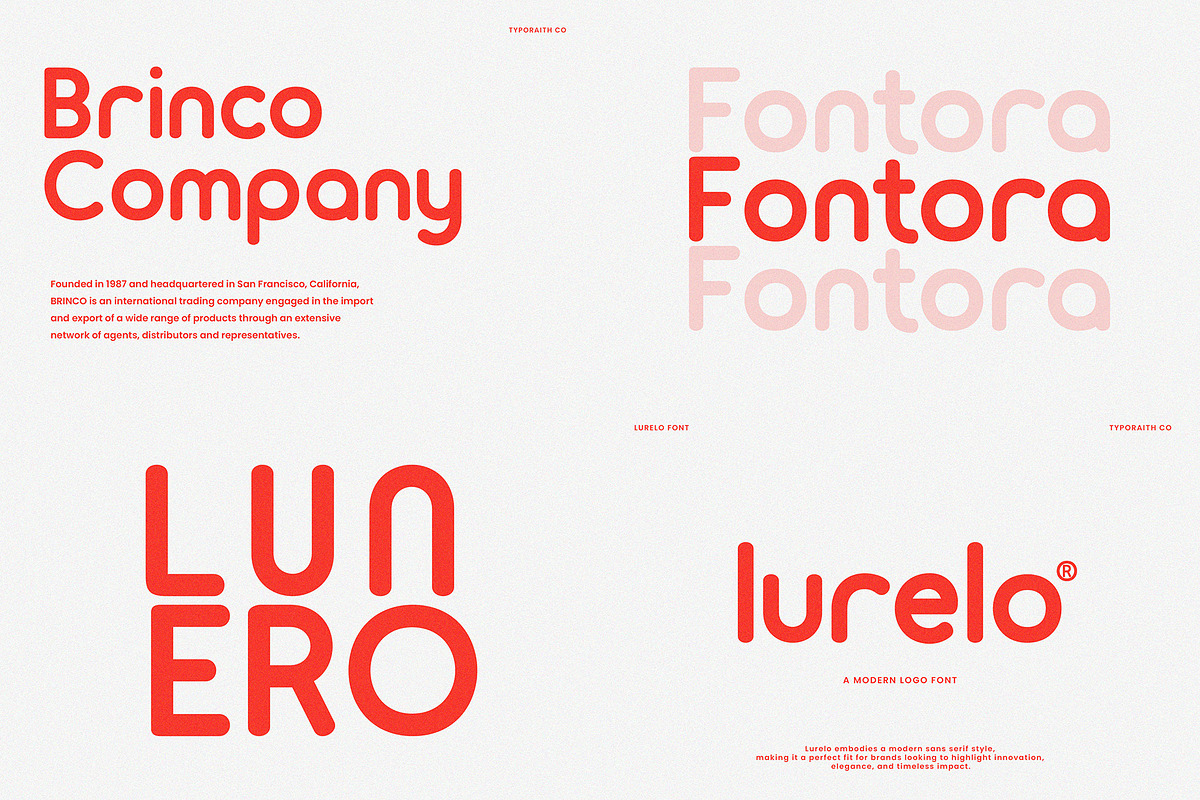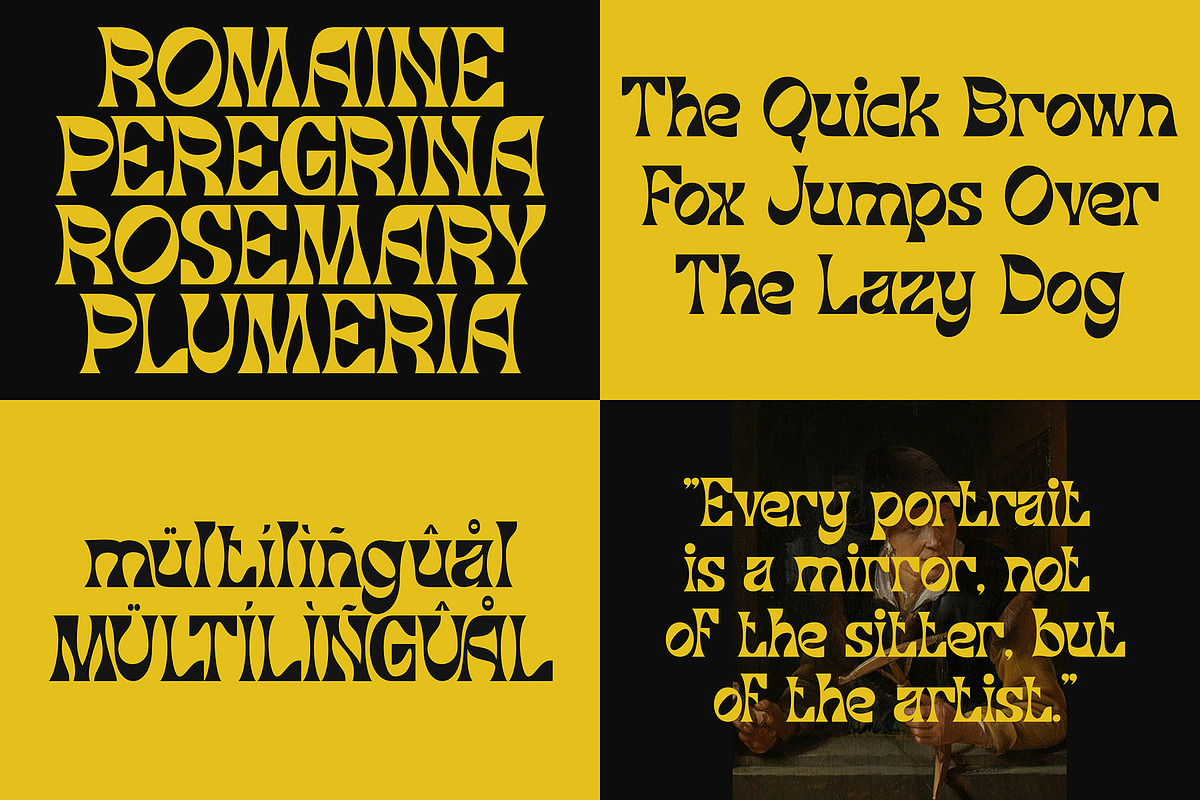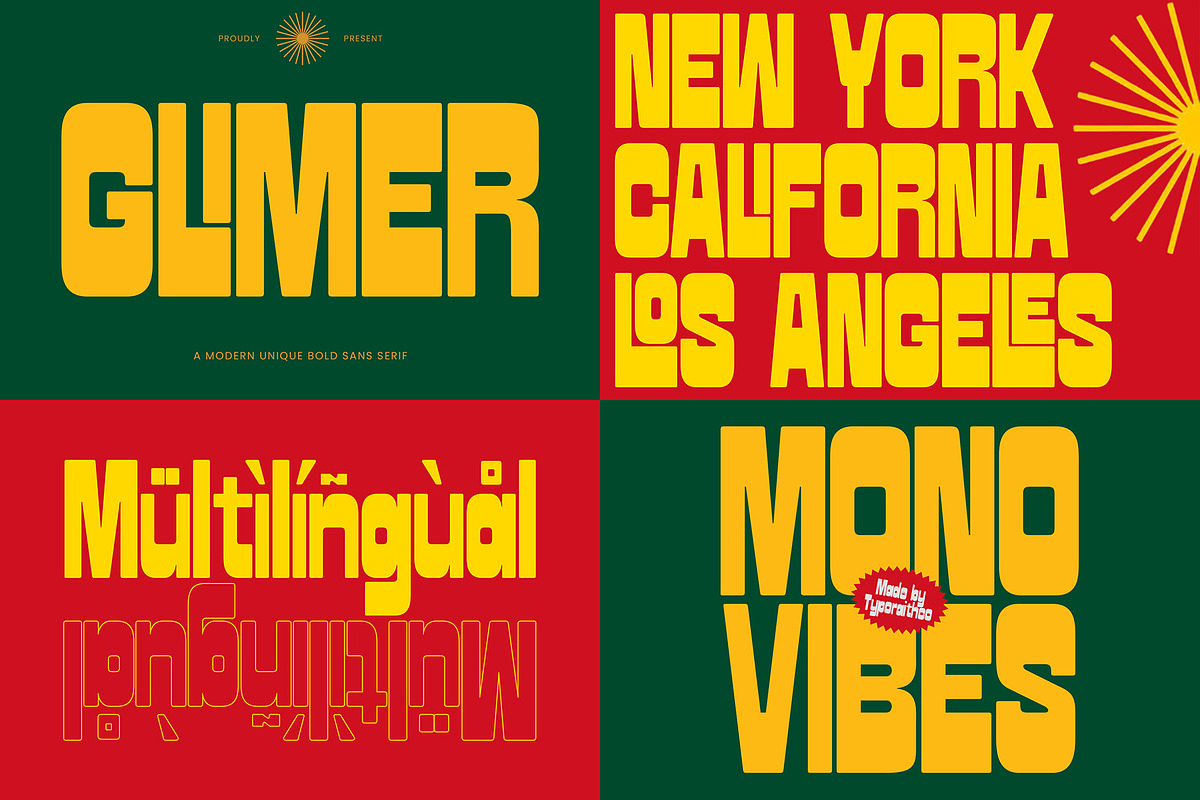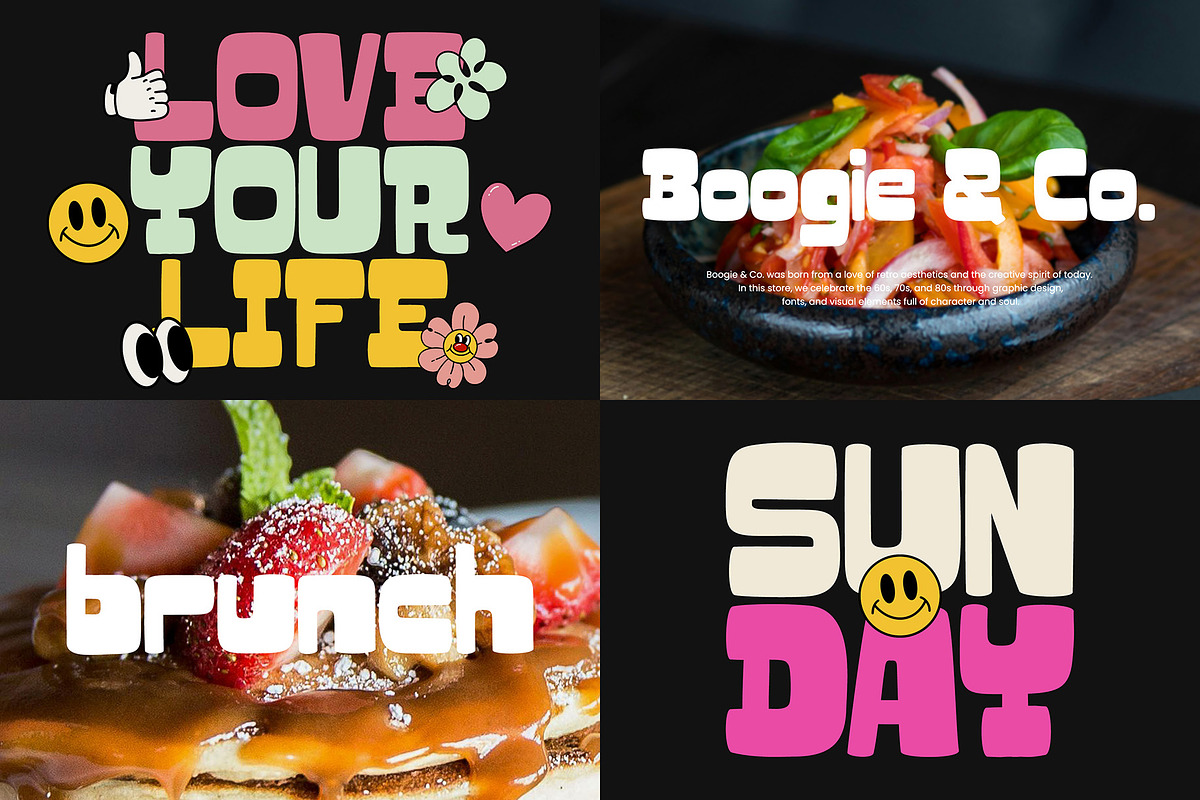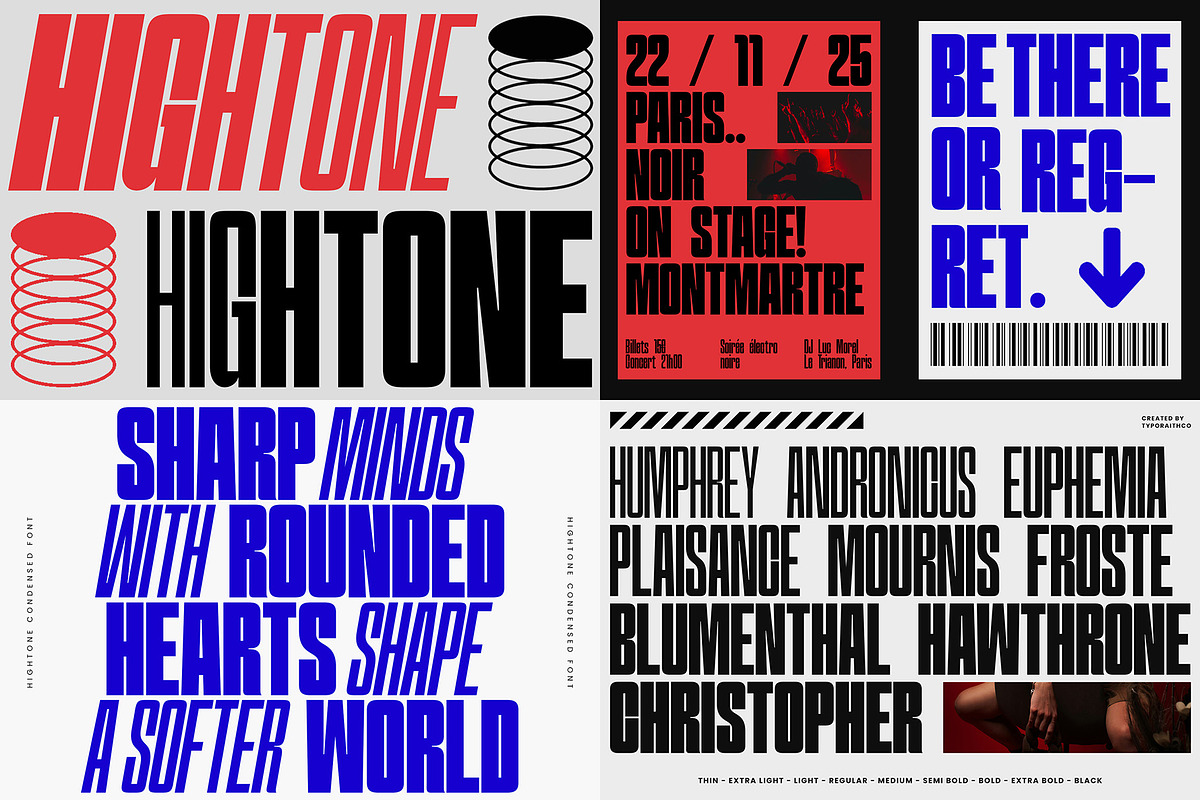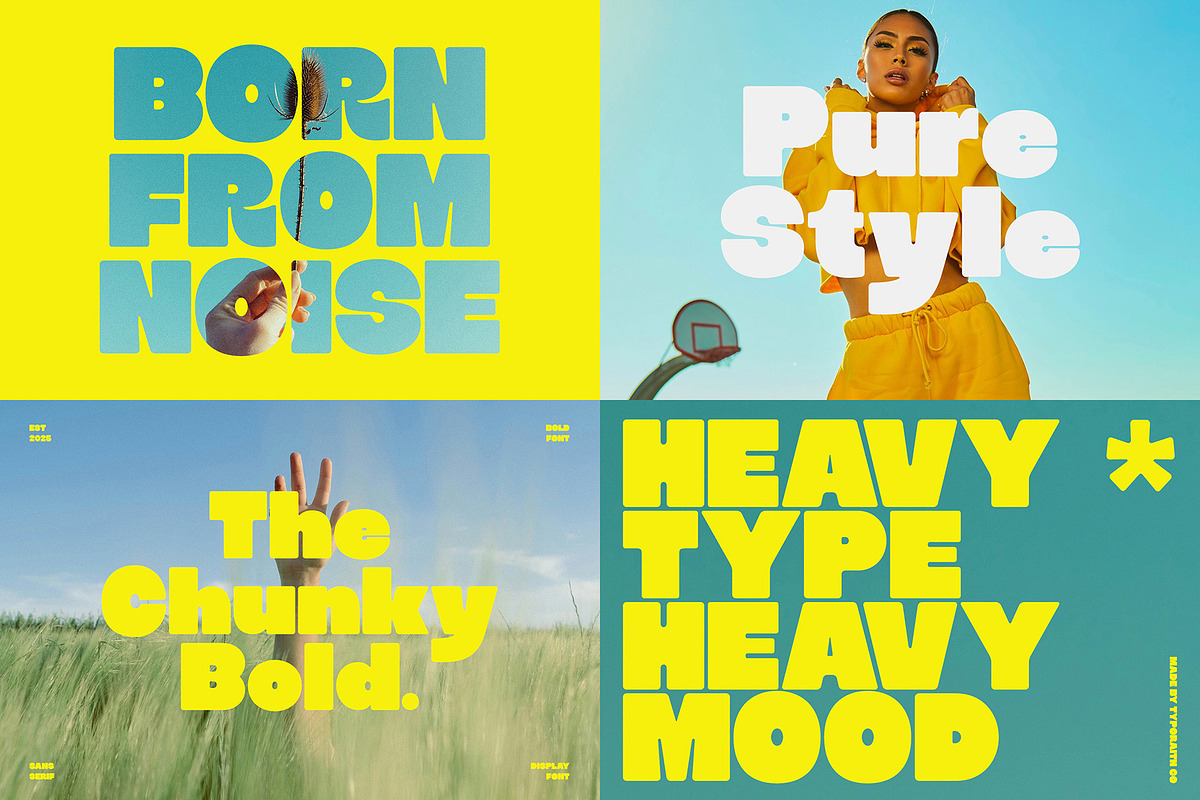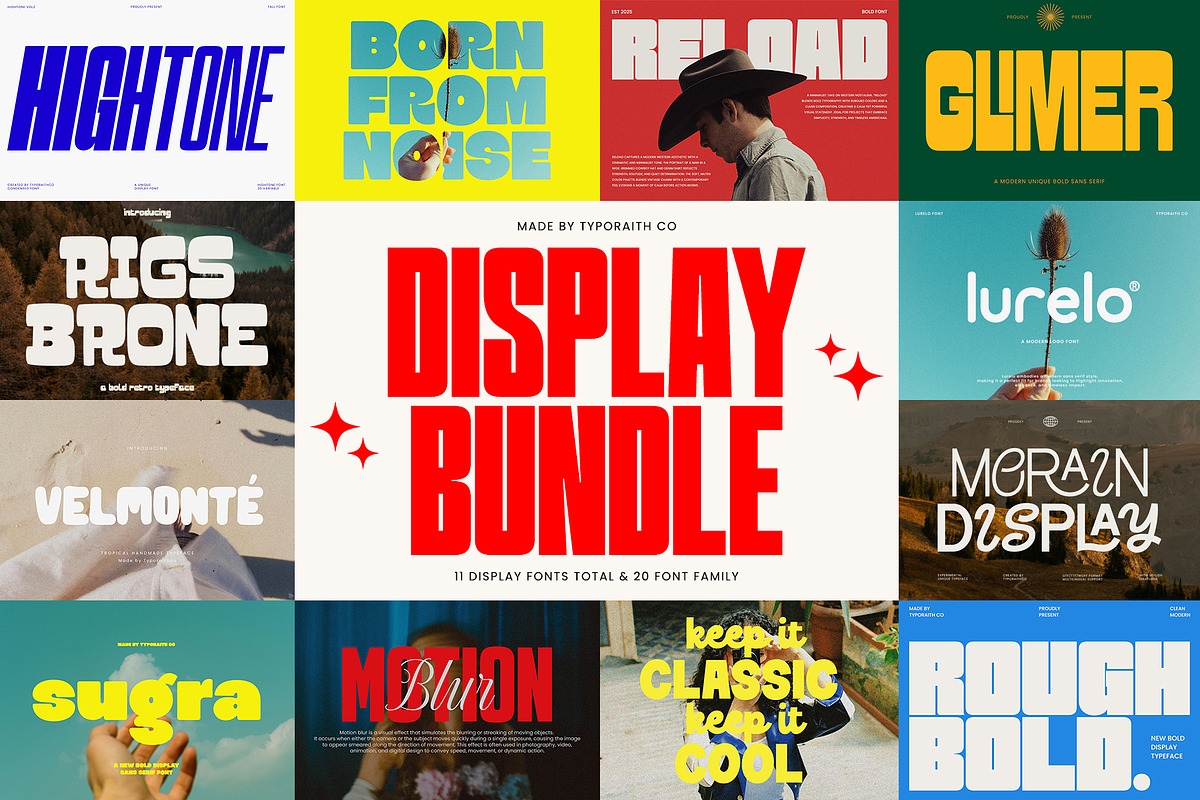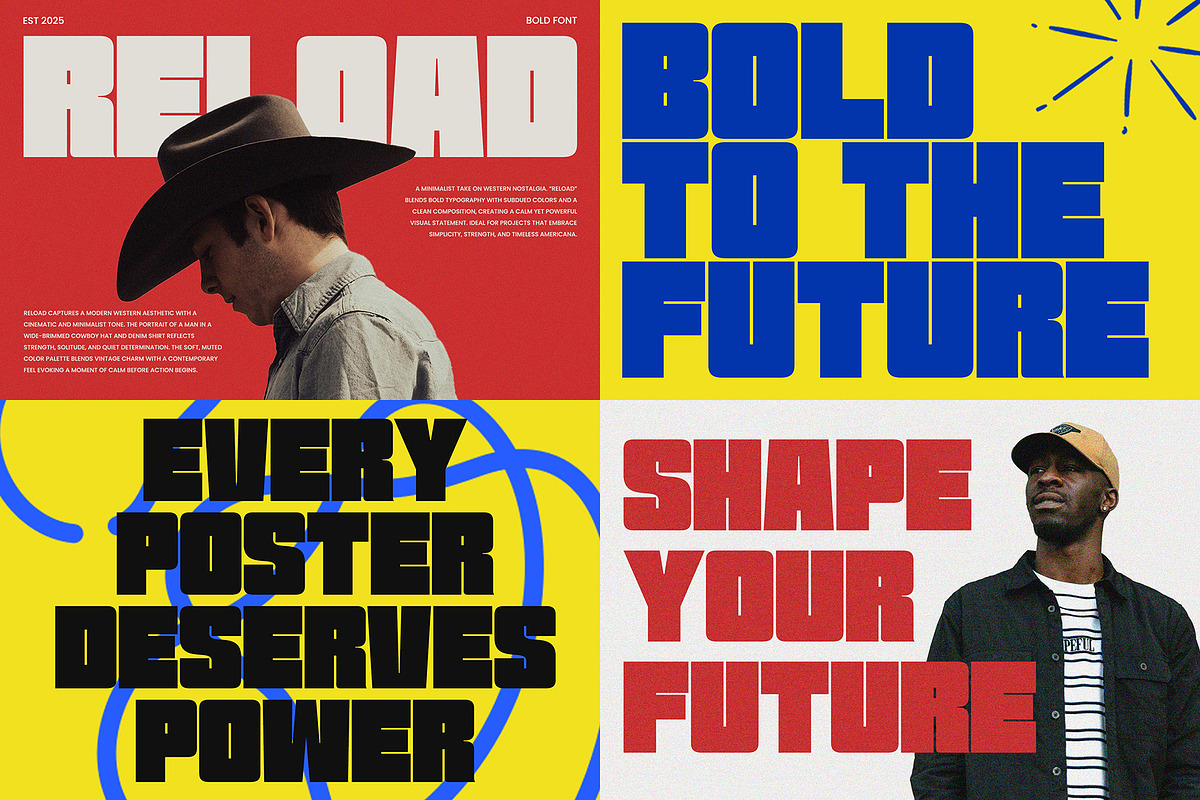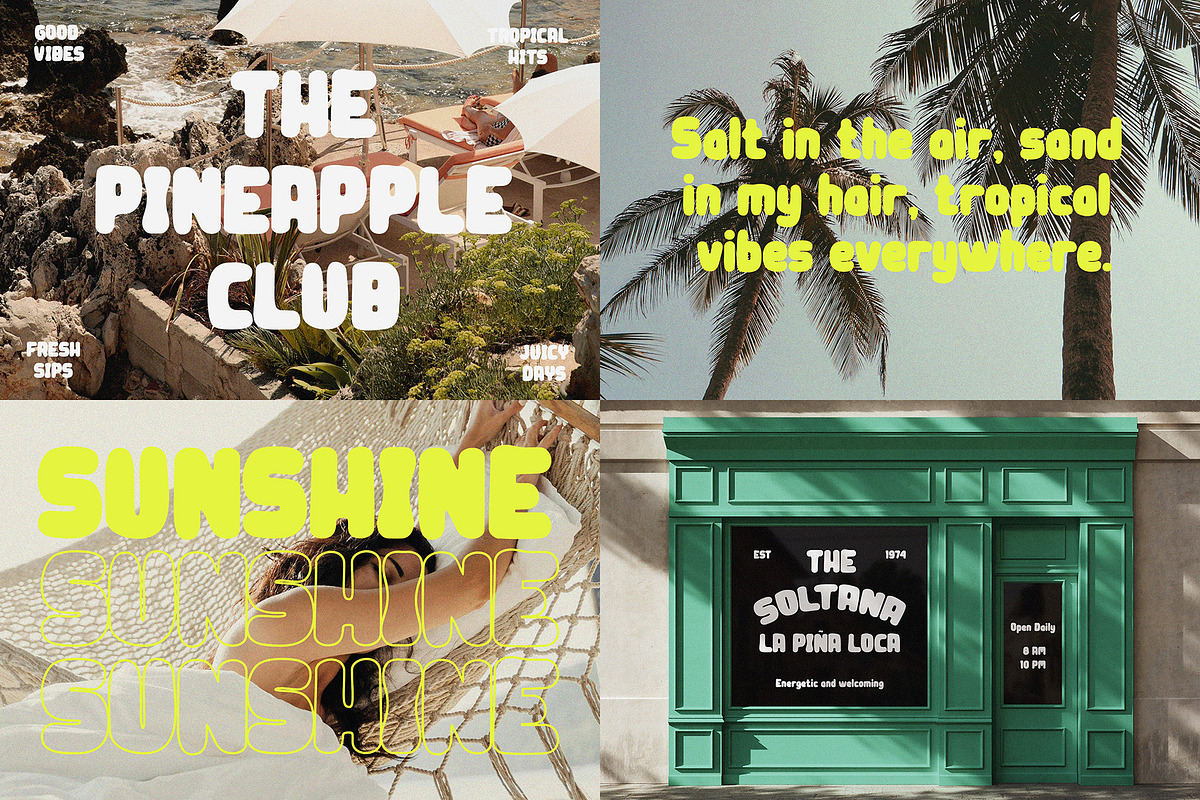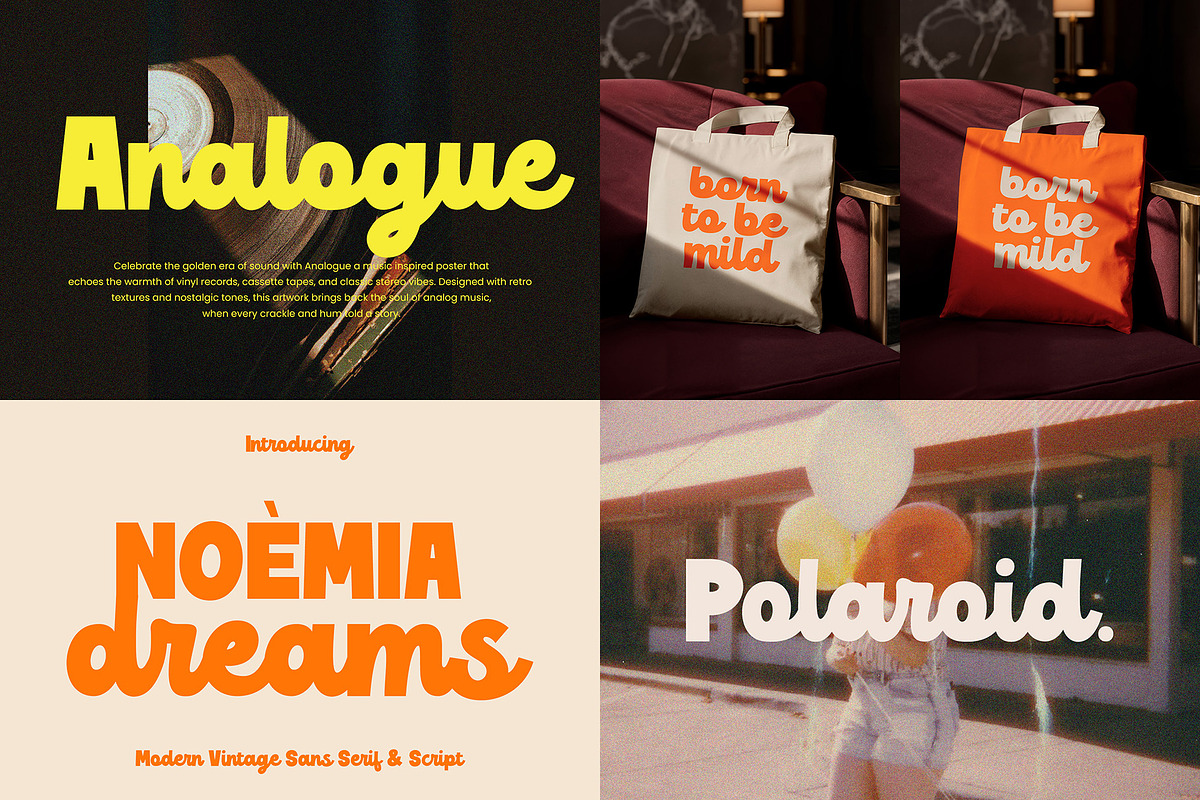
Display Font Bundle
Elevate your creative projects with this professionally crafted Display Font Bundle, a comprehensive collection of 11 premium display fonts totaling 20 complete font family. This bundle delivers a powerful range of expressive typefaces—perfect for designers, brand builders, and creators who need bold, captivating typography across multiple styles and moods.
Each typeface is created with careful attention to character shape, spacing, and visual rhythm, ensuring excellent performance in both digital and print environments. From striking bold sans-serifs to soft retro rounded displays, this bundle provides the flexibility to shape any visual direction you imagine.
High-Quality Design Each font is meticulously designed with consistent stroke width, optical balance, and clean geometry.
Optimized Kerning & Spacing All typefaces feature precise kerning to ensure professional results right out of the box.